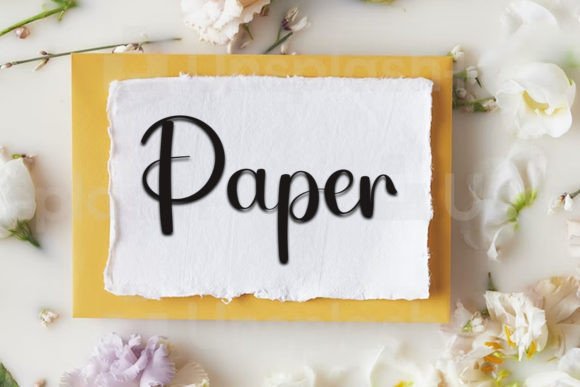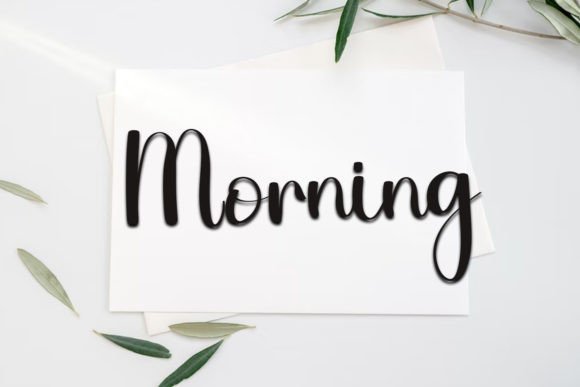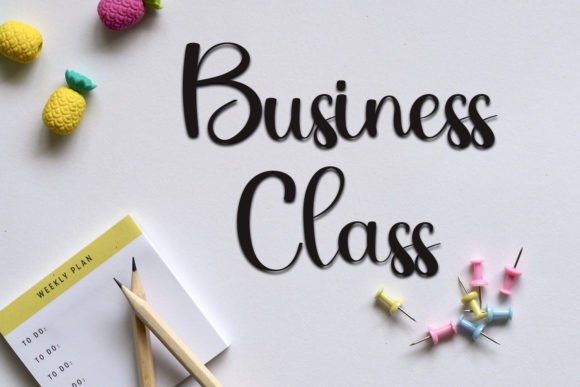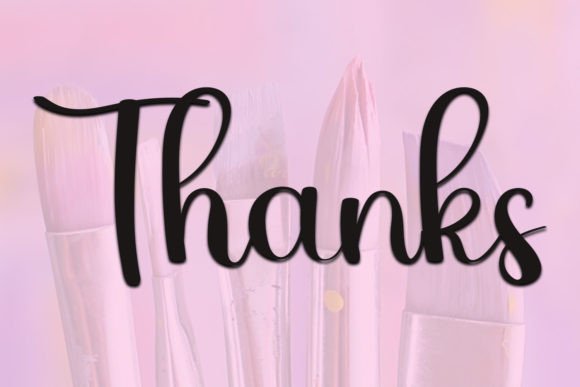
Introduction to Release Font
Release This font is a fresh and beautiful font, good for your design purposes such as Youtube banners, Cover Logo Mockups, Wedding Invitations, Id Cards, Flayer, Crafts.
By using this font your business will progress and develop Apart from that this font is simple and unique.
Key Features of Release Font
Why Choose Release Font?
Release Font offers exceptional quality and versatility, making it a valuable addition to your design toolkit. Whether you’re creating for personal projects or commercial use, Release Font delivers professional results.